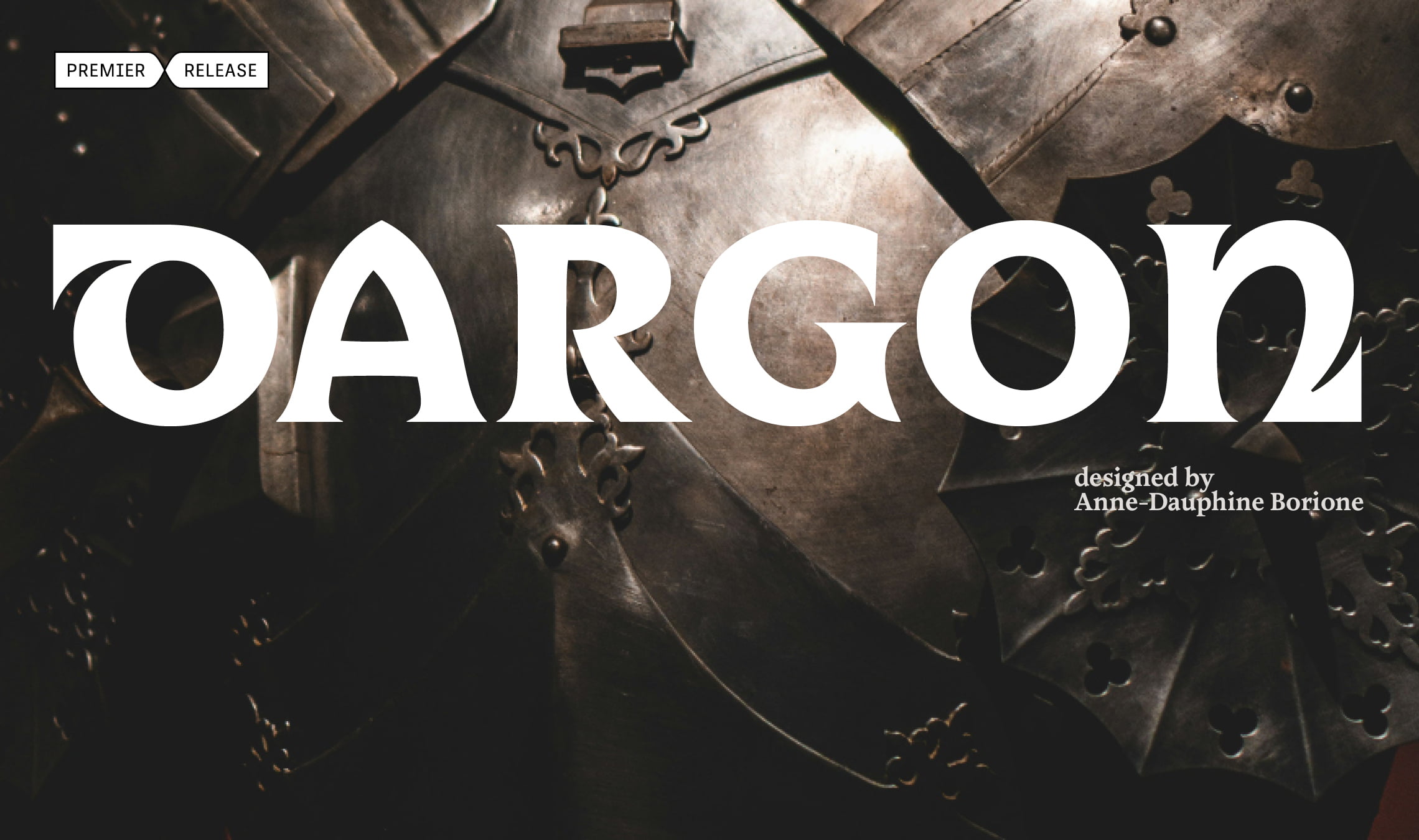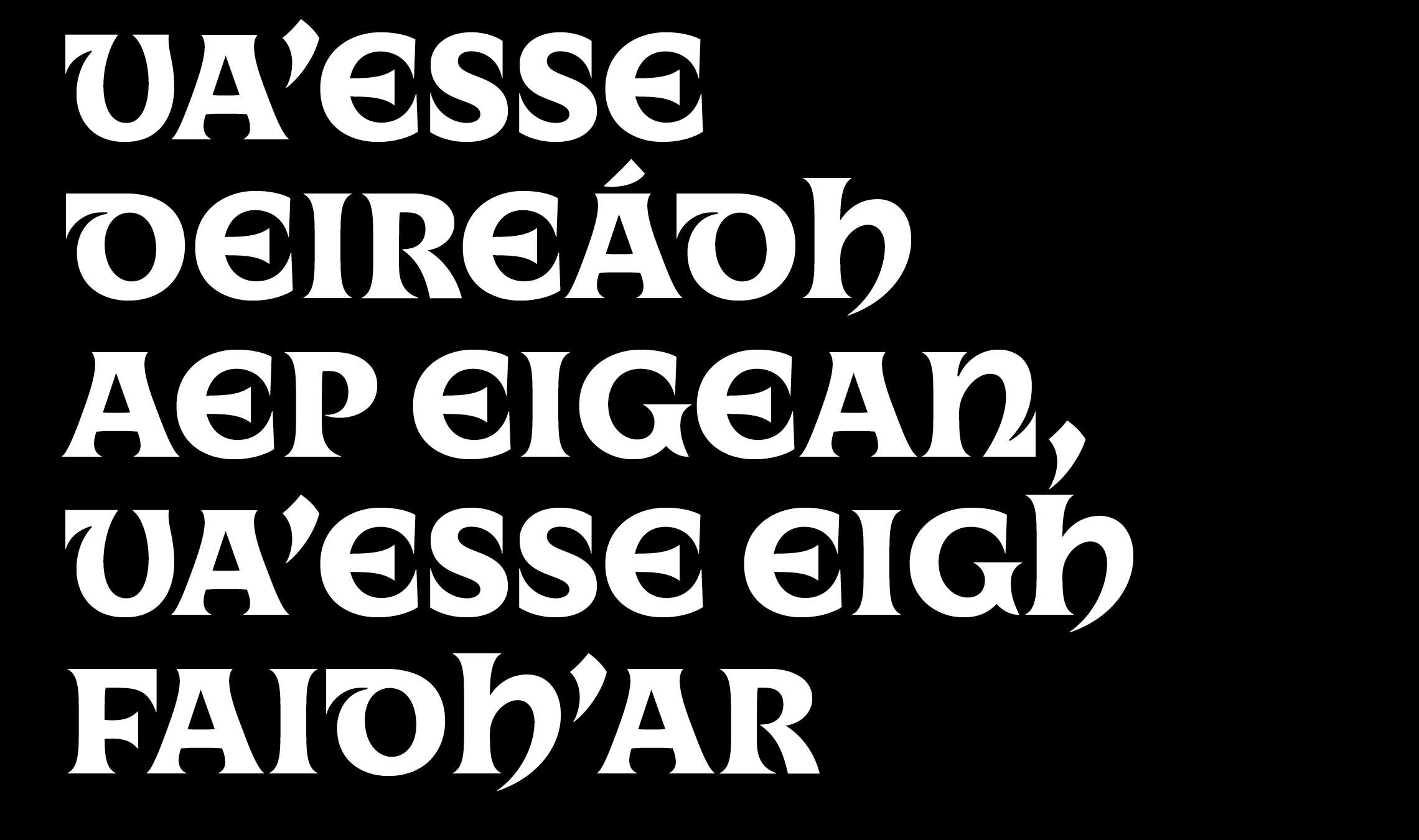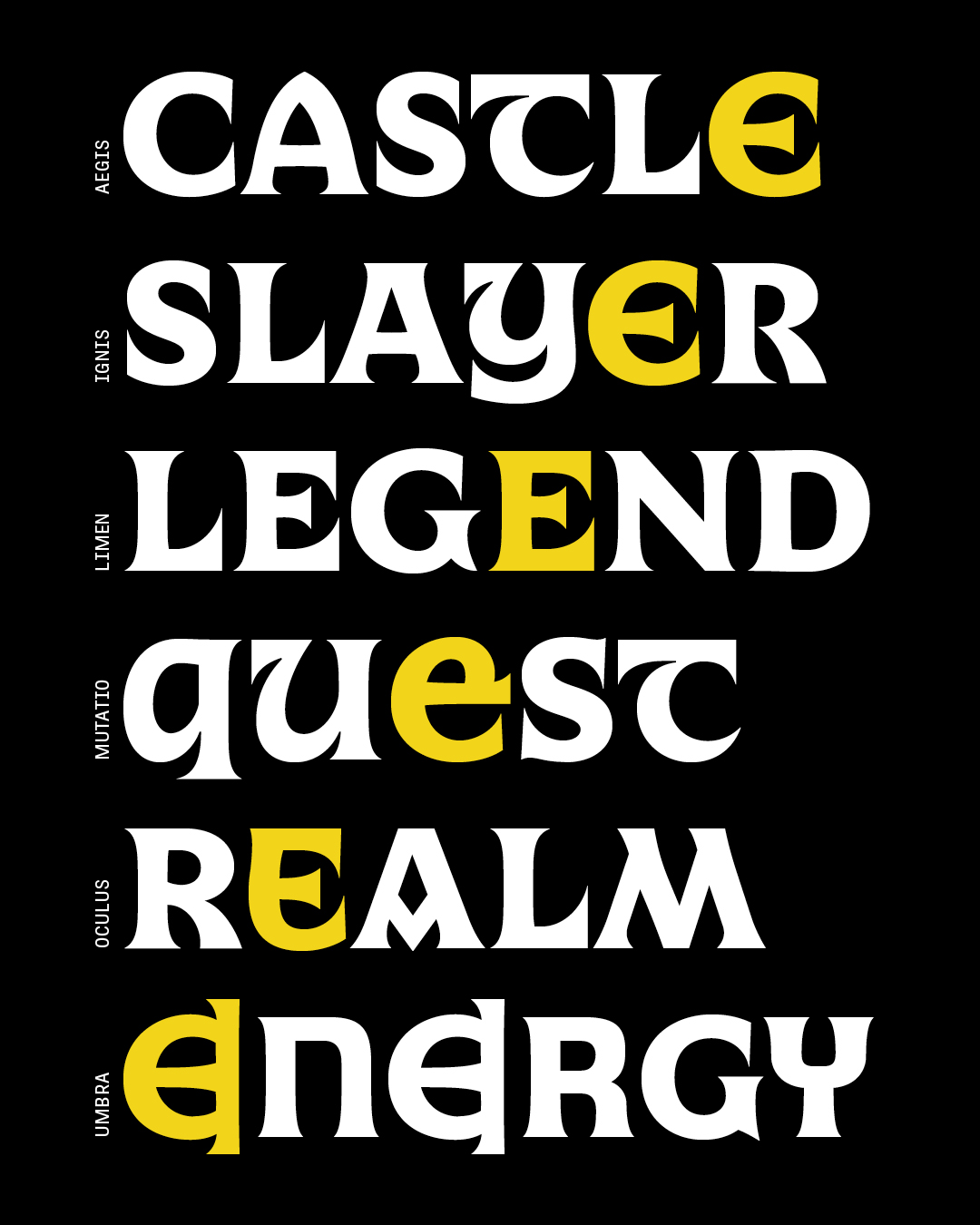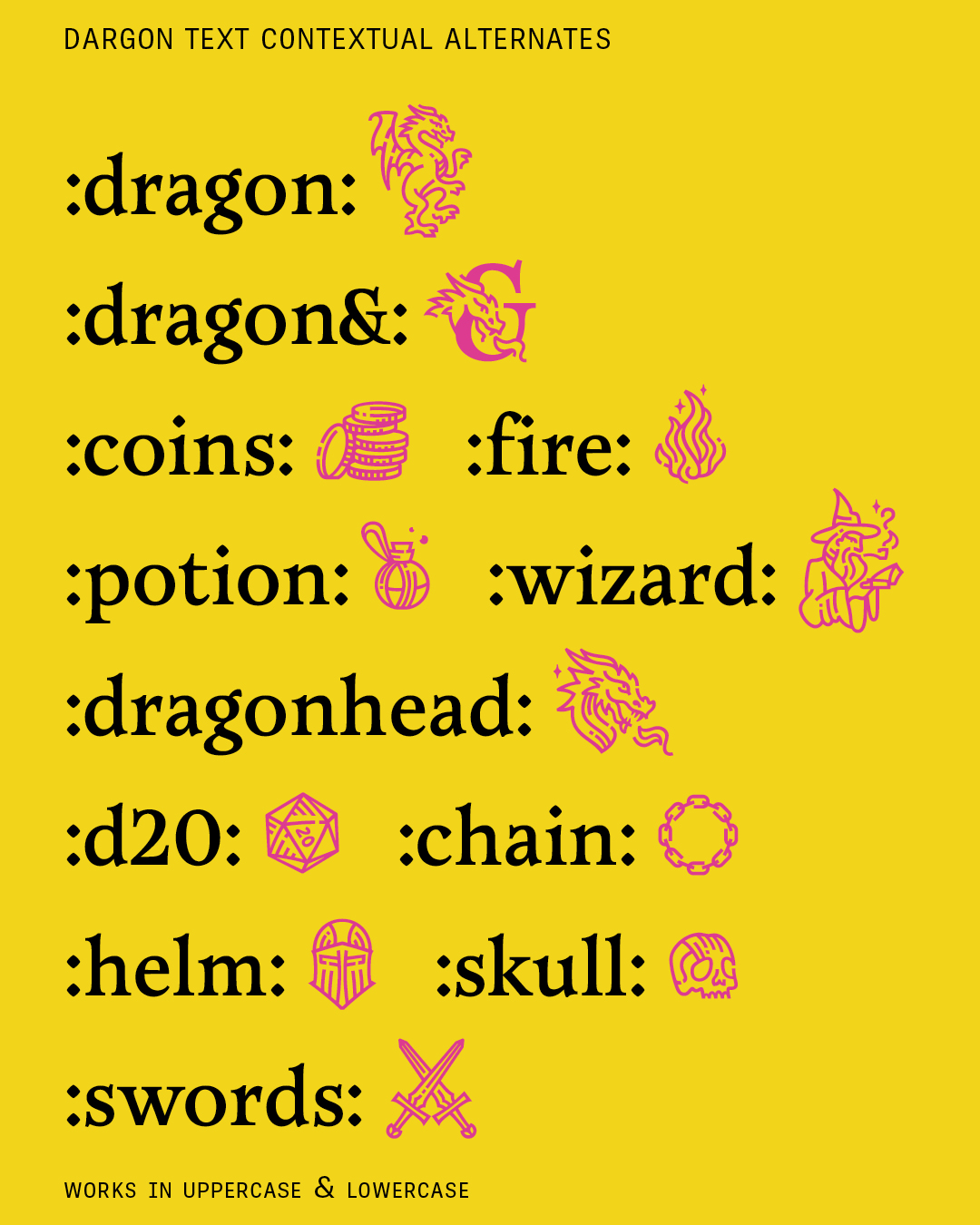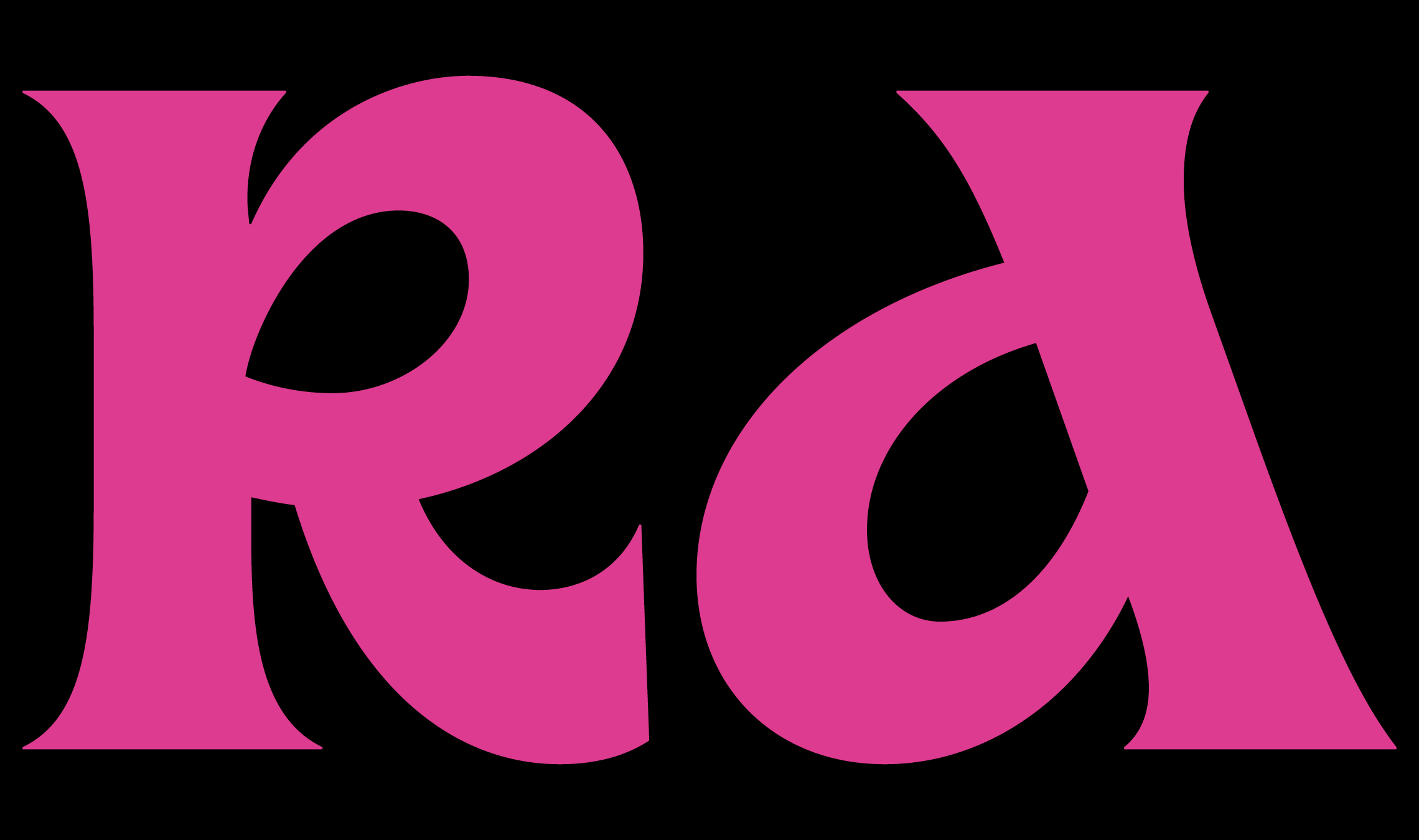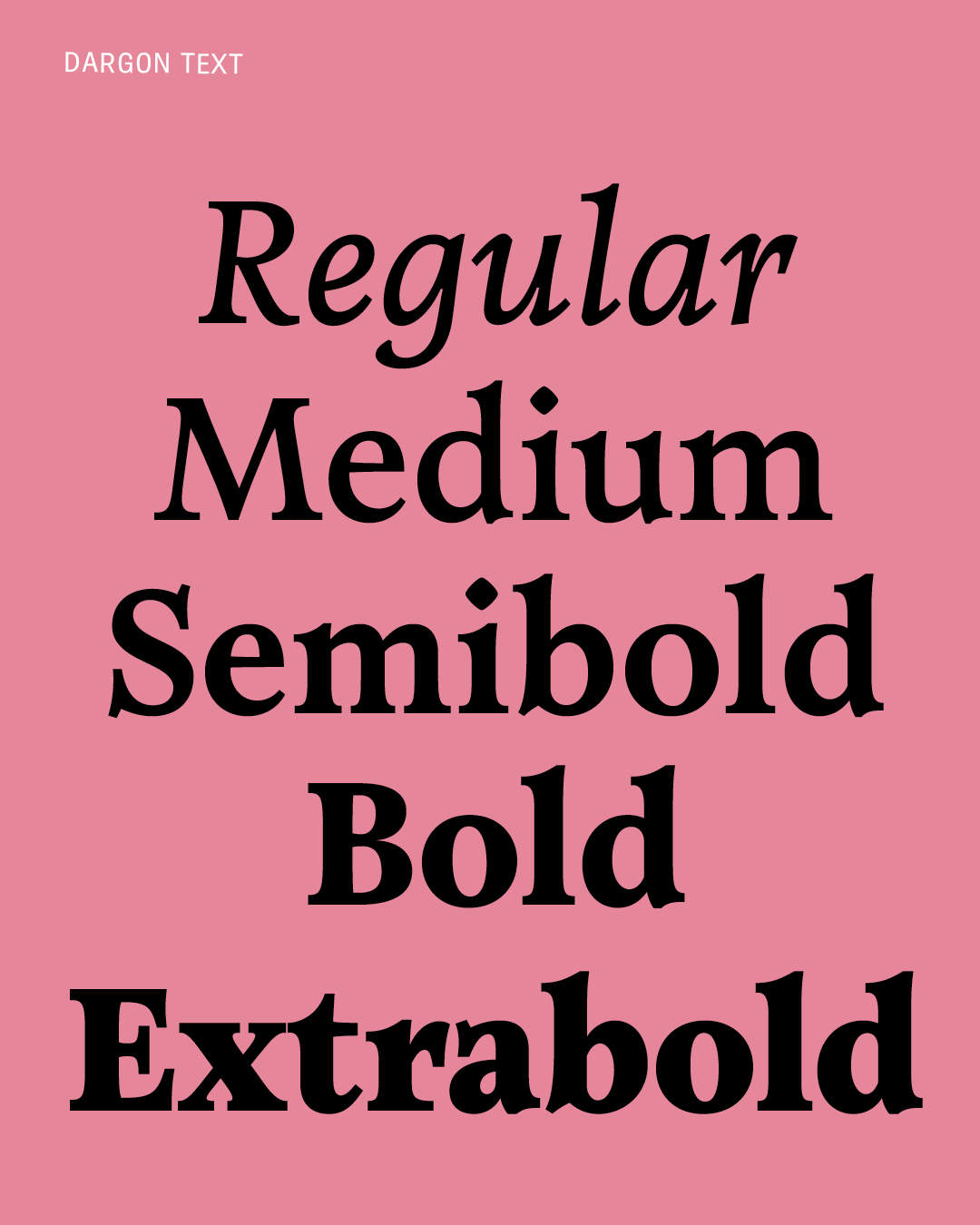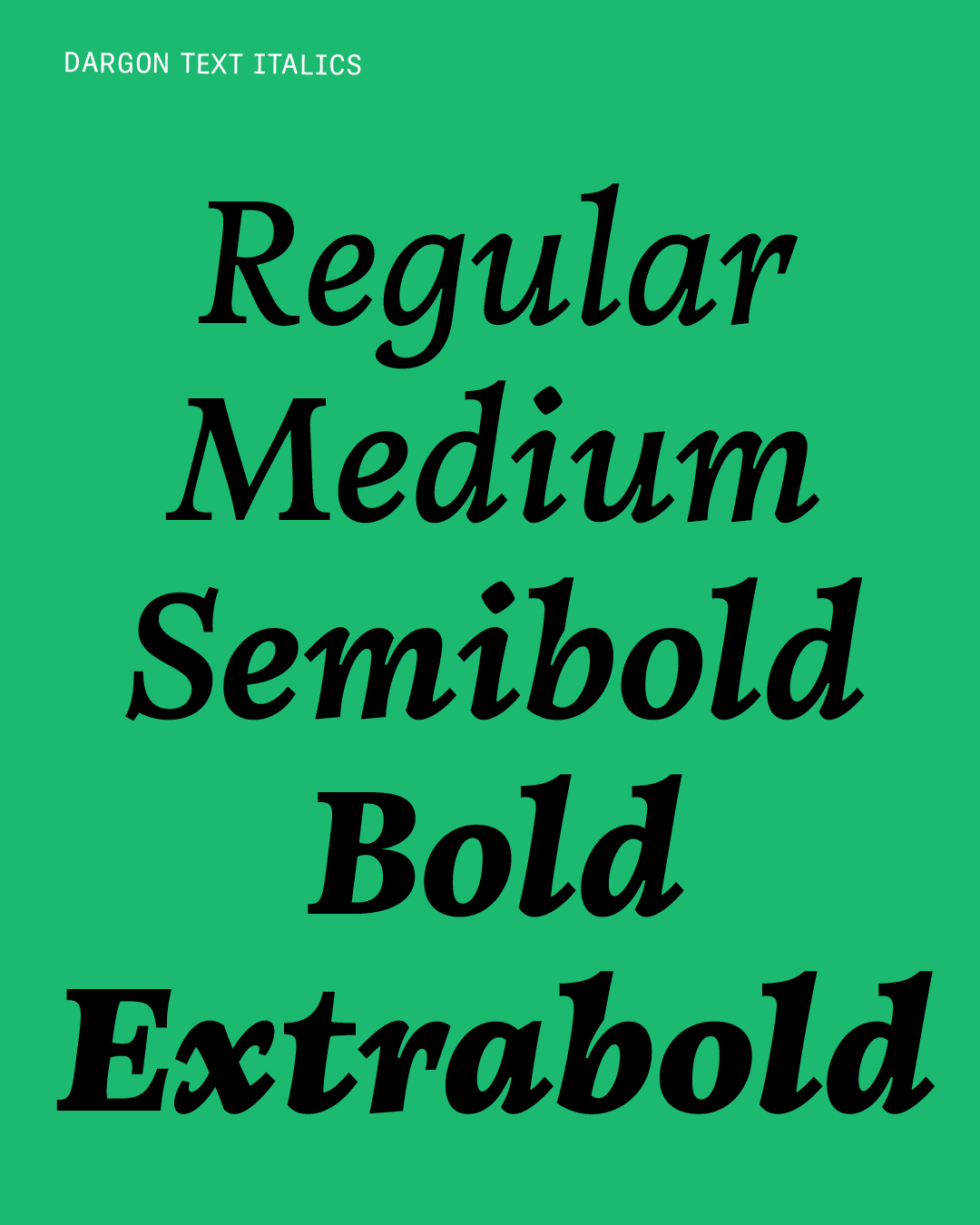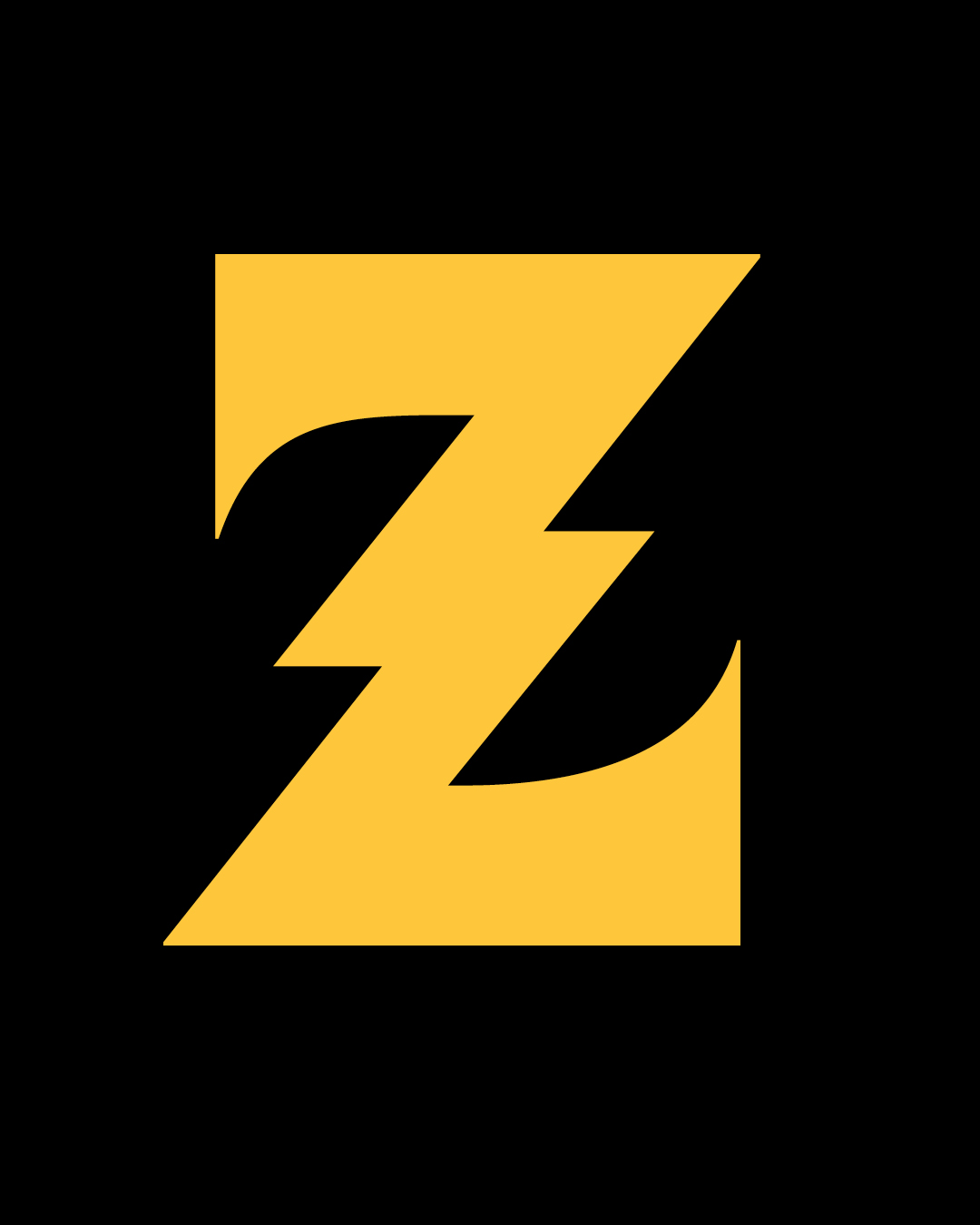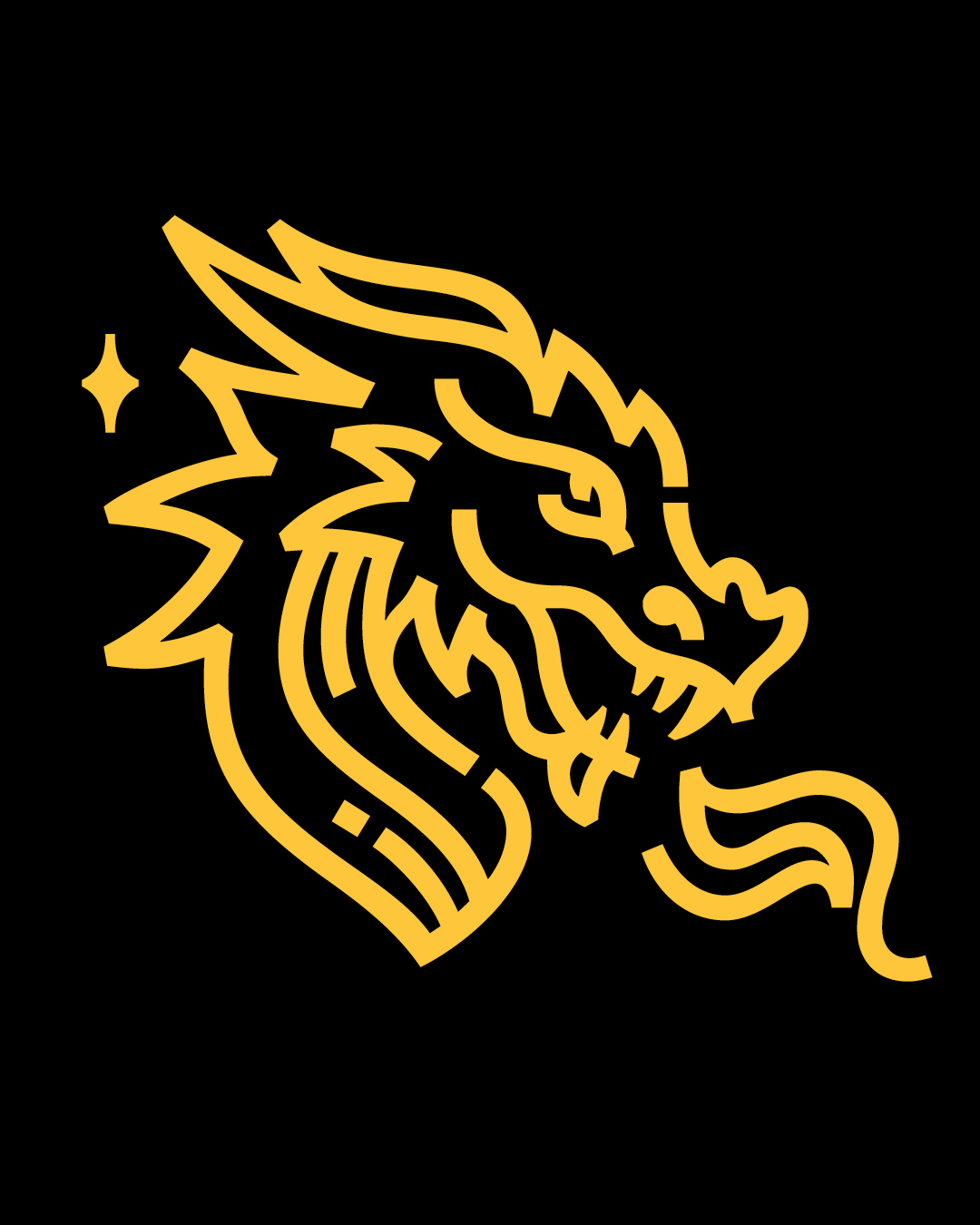
Dargon: your quest begins
It has been an epic quest years in the making, and now we can announce the release of Dargon, a serif type family with five text and italic styles, and six uncial display fonts inspired by fantasy gaming. Designed by Anne-Dauphine “Ando” Borione, Dargon draws on a rich heritage of role-playing games, fantasy novels, historical tales, and speculative fiction, but the research for Dargon goes even deeper, into medieval letterforms, runes, and ancient calligraphy.
Dargon was the winner of the 2024 Gerard Unger Scholarship, and its design shows the care and thought usually only devoted to a truly beloved D&D character. Dargon’s blade has two sides, each masterfully sharp: Dargon, a six-font uncial arsenal for head-turning titles, while Dargon Text is a faithful body copy steed — ready for crisp UI overlays in Roll20 to novella-length scrolls that hold legibility at 8pt.
But the uncials? That’s where Dargon casts Fireball. Each stylistic set draws from things like the Weave’s schools of magic—Ignis for fiery evocations, Limen for planar thresholds, Mutatio for shape-shifting transmutations, Oculus for scrying divination, Aegis for abjuration wards, Limen for conjuration, and Umbra for shadowy illusions. Set your text in any of the Dargon uncials and watch your copy transmute into potent incantations: tight kerning on Ignis evokes a dragon’s breath, while Umbra's subtle offsets summon creeping dread.
These aren’t mere fonts—they're fantasy glyphs forged for the grind. Render them in your favorite vector software for laser-sharp minis, export to your virtual tabletop for live-session spellbooks. Dargon levels up your quests, from character sheets to con booth banners.